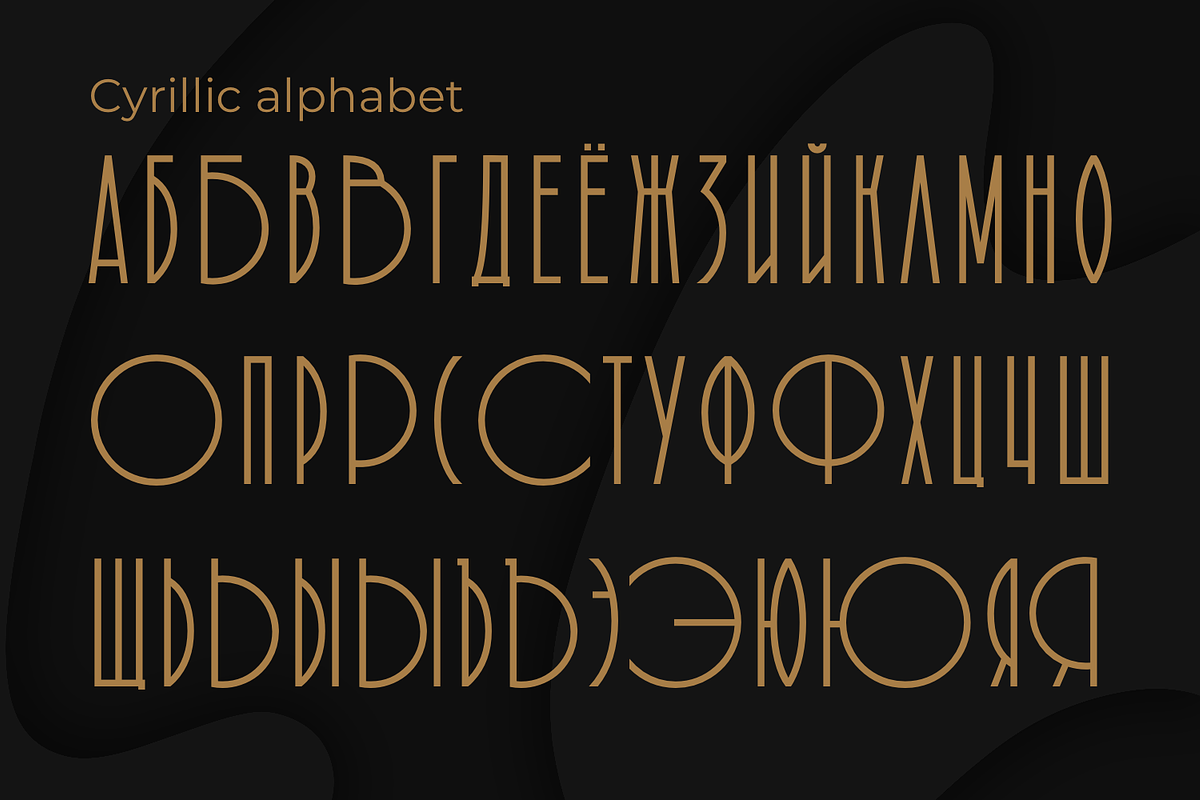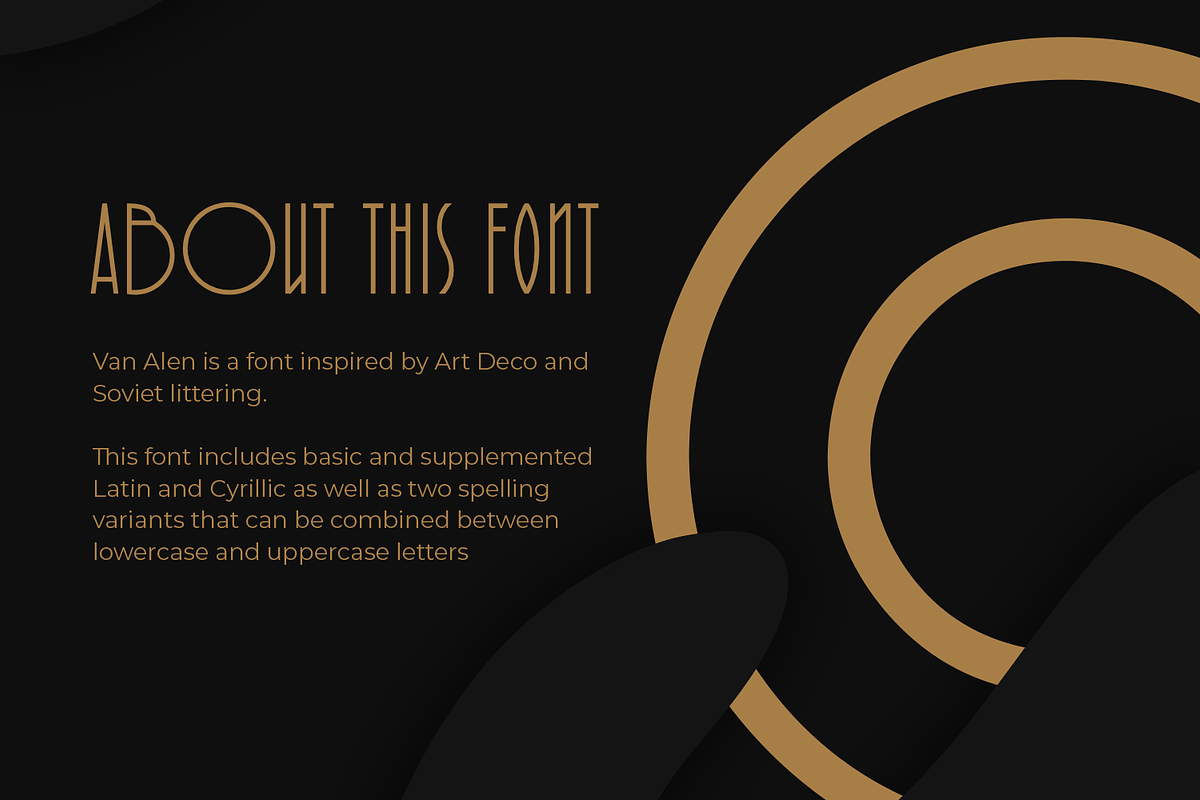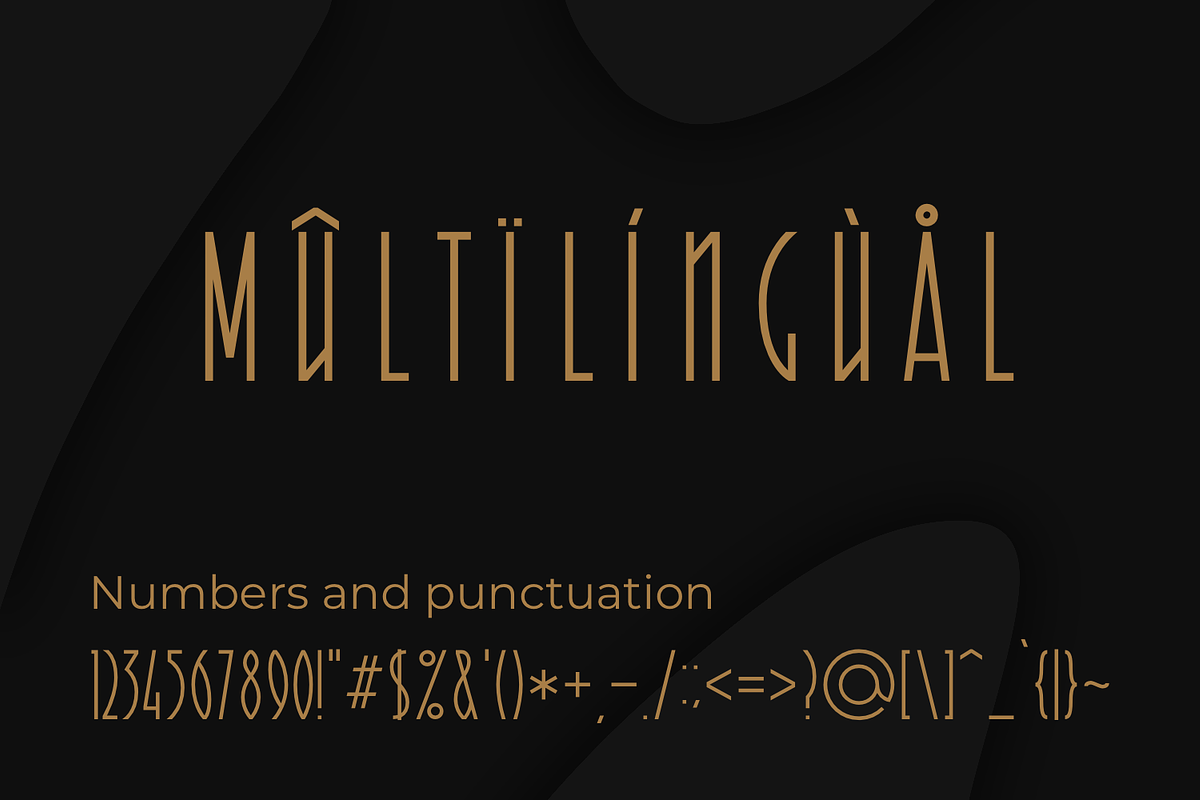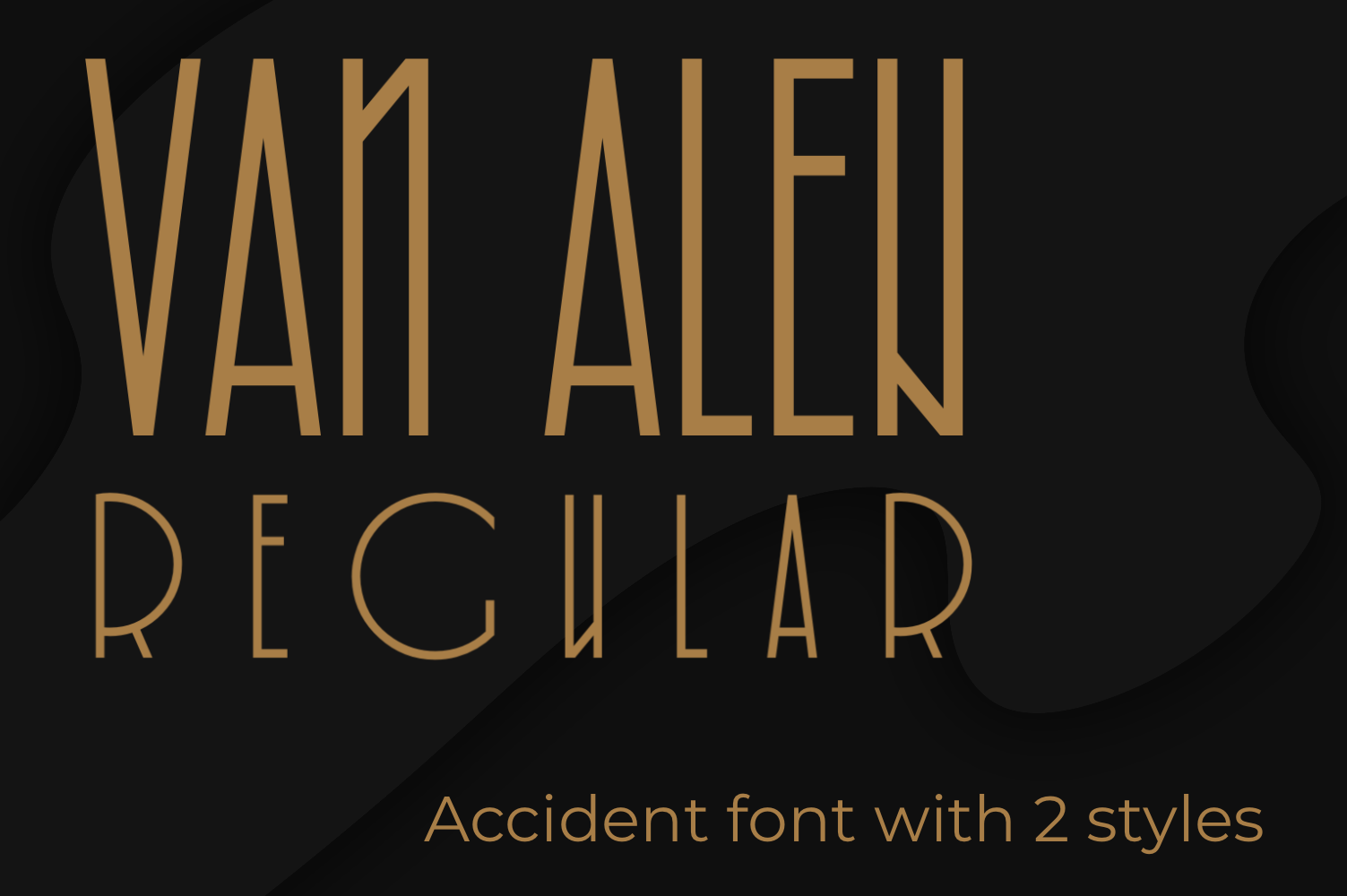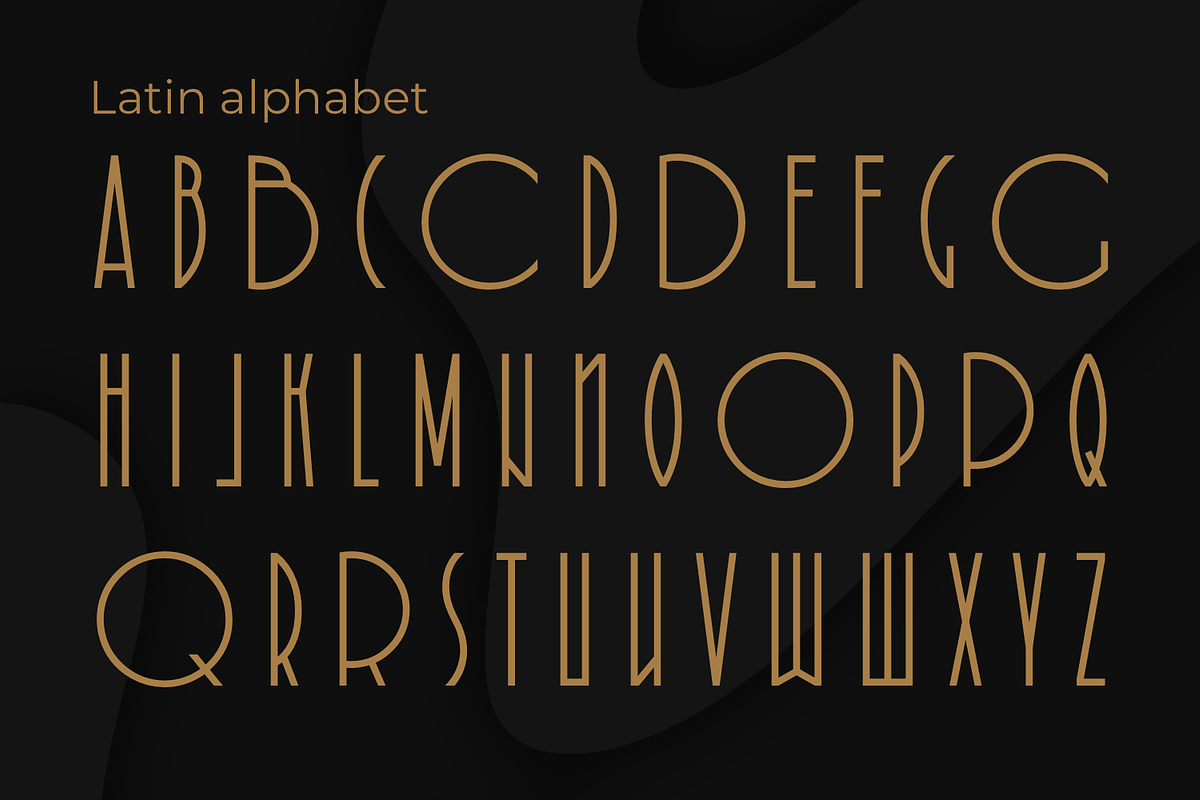
Van Alen - font
Van Alen is a font ispired by Art Deco and Soviet lettering.
This font includes basic and supplemented Latin and Cyrillic as well as two spelling variants that can be combined switching between lowercase and uppercase letters.